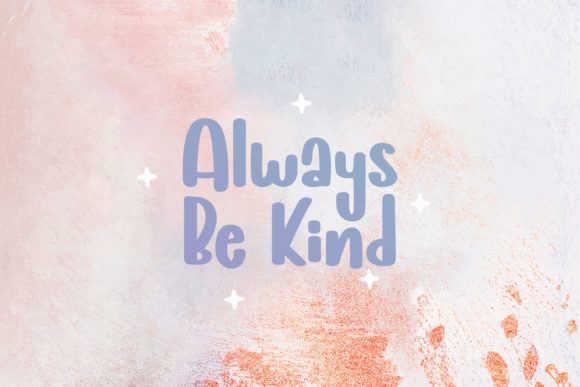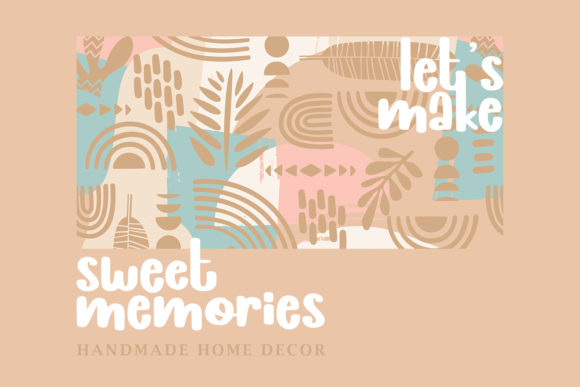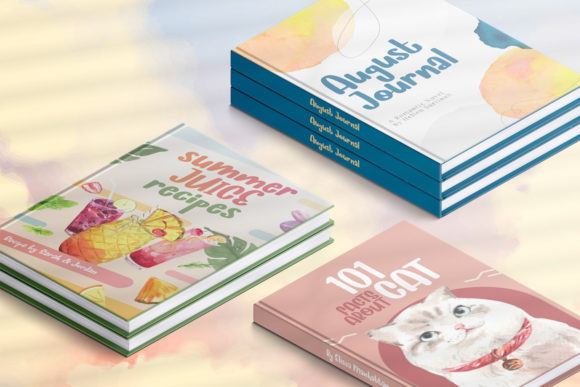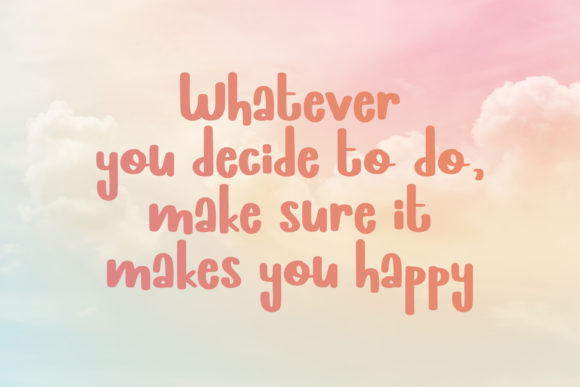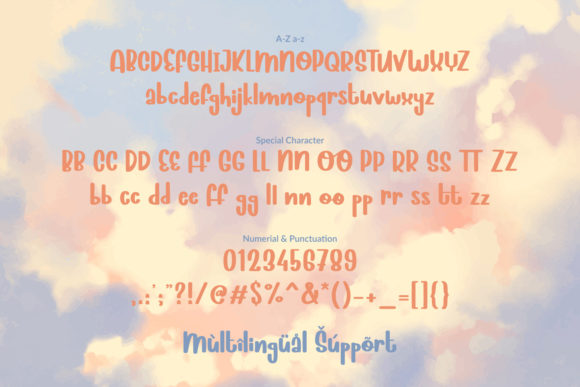
Introducing Cloud Bread Font: The Sweet and Friendly Display Font You Need!
Hello! Are you on the hunt for a font that can add a touch of sweetness and friendliness to your designs? Look no further than Cloud Bread, a delightful display font that’s sure to capture your heart! This font boasts bold and cute shapes that will make your creations stand out from the crowd. In this article, we’ll dive into the wonderful world of Cloud Bread and explore its unique features, uses, and benefits.
What is Cloud Bread Font?
Cloud Bread is a sweet and friendly display font designed to bring a smile to your face. Its bold and cute shape makes it perfect for a wide range of design projects, from playful branding and advertising to charming invitations and crafts. This font’s unique style is sure to inspire you to create something fun and memorable!
Key Features of Cloud Bread Font
- Unique and Quirky Design: Cloud Bread’s distinctive shape is sure to set your designs apart from the rest.
- Bold and Cute: This font’s bold and cute shape makes it perfect for creating eye-catching designs that appeal to a wide audience.
- Versatile: Cloud Bread is incredibly versatile and can be used for a variety of design projects, from digital to print.
- Easy to Read: Despite its bold and playful design, Cloud Bread is easy to read, making it perfect for use in titles, headings, and short paragraphs.
Uses of Cloud Bread Font
Cloud Bread is an incredibly versatile font that can be used in a wide range of design projects, including:
- Branding and Advertising: Use Cloud Bread to create playful and memorable brand identities that will capture your audience’s attention.
- Invitations and Events: Add a touch of sweetness and friendliness to your invitations and event materials with Cloud Bread.
- Crafts and DIY Projects: Cloud Bread is perfect for crafters and DIY enthusiasts who want to add a personal touch to their projects.
- Digital Design: Use Cloud Bread in your digital designs, such as social media graphics, blog posts, and website headers.
Benefits of Using Cloud Bread Font
So, why choose Cloud Bread for your design projects? Here are just a few benefits of using this delightful font:
- Instant Recognition: Cloud Bread’s unique design makes it instantly recognizable and memorable.
- Emotional Connection: This font’s sweet and friendly design helps to create an emotional connection with your audience.
- Versatility: Cloud Bread can be used in a wide range of design projects, making it a great addition to your font library.
Tips for Using Cloud Bread Font
Here are a few tips for getting the most out of Cloud Bread:
- Use it Boldly: Cloud Bread is designed to make a statement, so don’t be afraid to use it boldly in your designs.
- Experiment with Colors: This font looks great in a wide range of colors, so experiment to find the perfect hue for your design.
- Pair it with Other Fonts: Cloud Bread pairs well with a variety of other fonts, so don’t be afraid to get creative with font combinations.
| Font Name | Cloud Bread Font |
| Author | Orenari |
In conclusion, Cloud Bread is a sweet and friendly display font that’s sure to bring a touch of fun and memorability to your designs. With its unique and quirky design, bold and cute shape, and versatility, this font is perfect for a wide range of design projects. Whether you’re a designer, crafter, or DIY enthusiast, Cloud Bread is a great addition to your font library. So why wait? Download Cloud Bread today and start creating something fun and memorable!